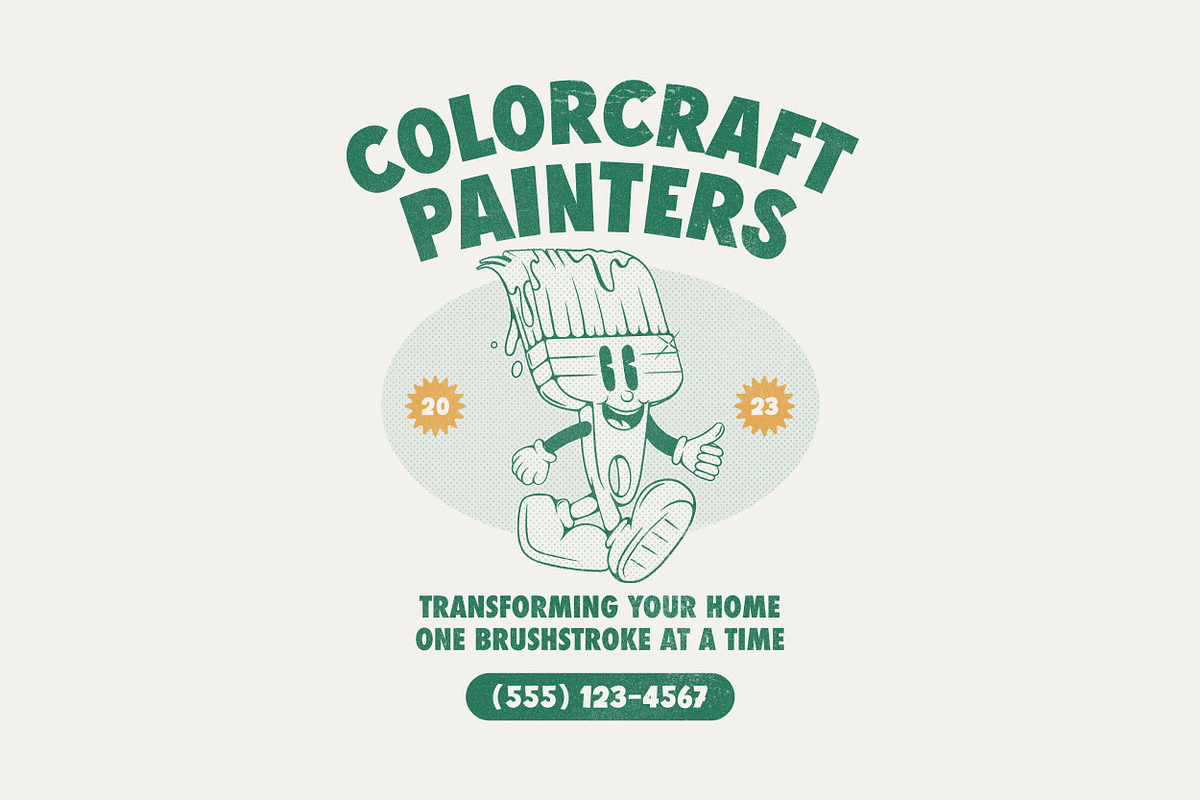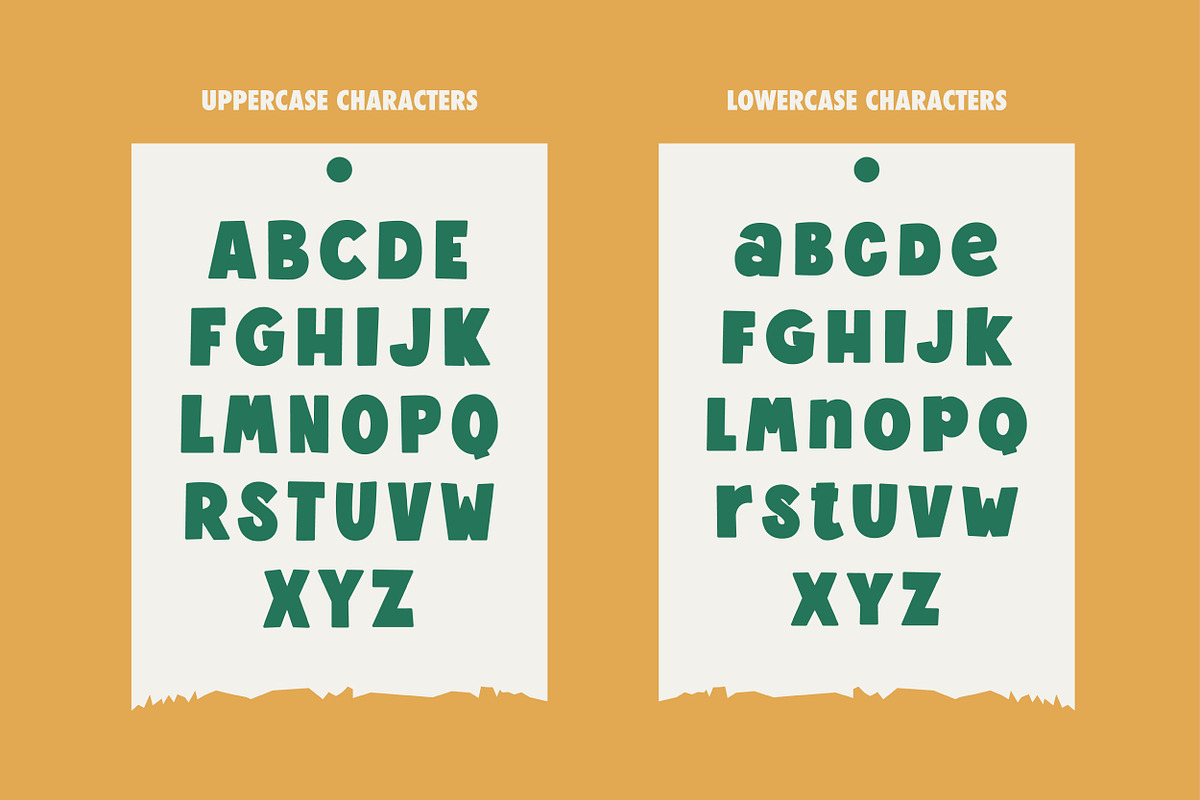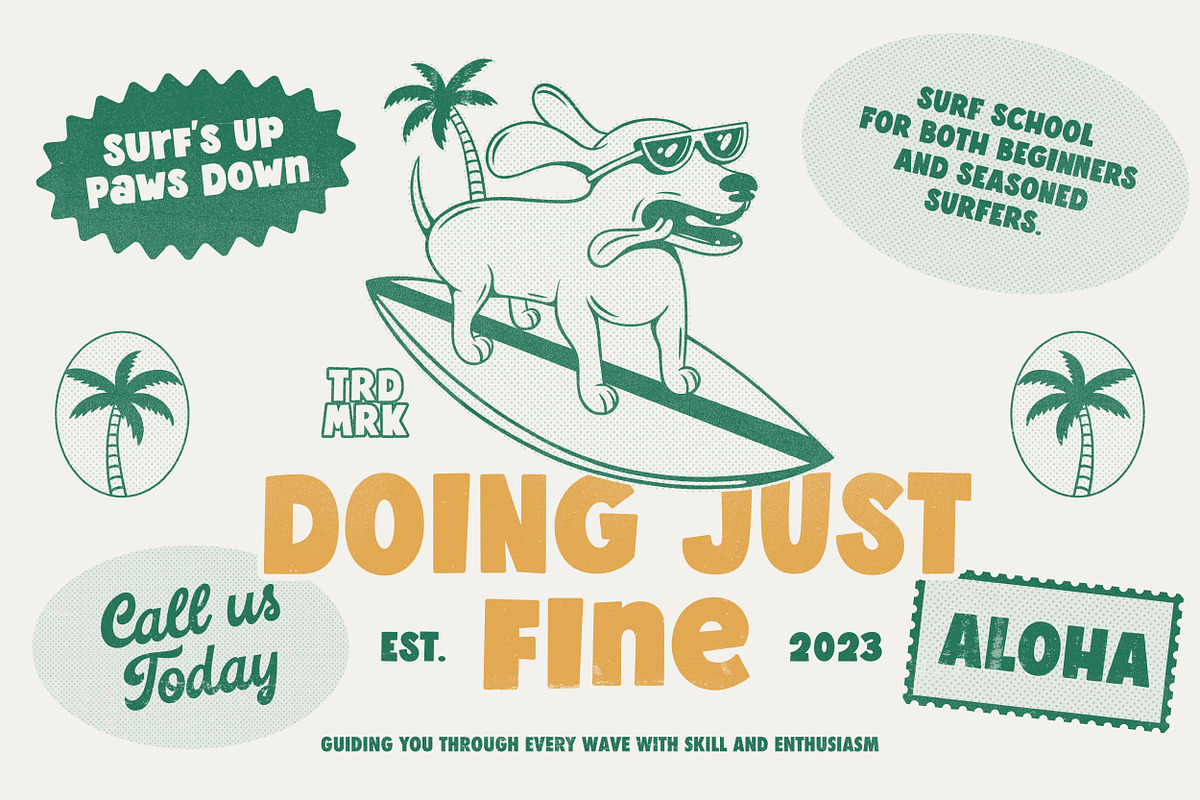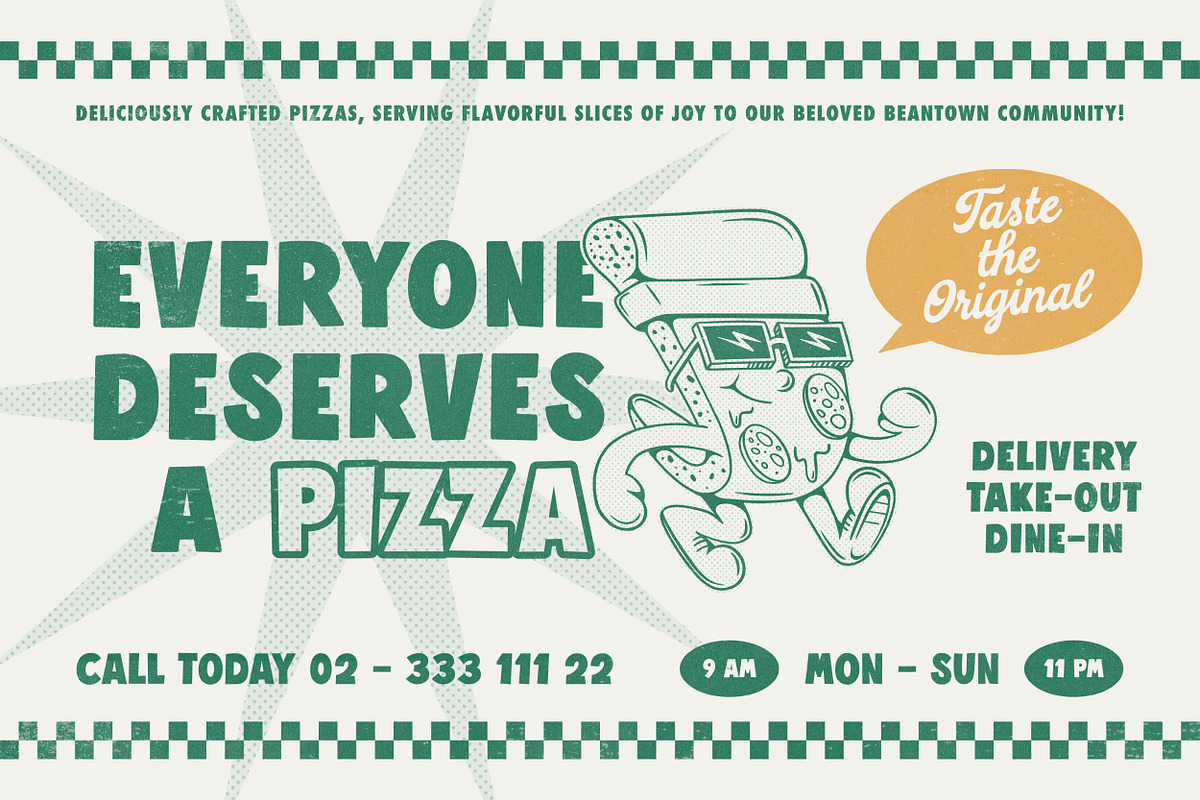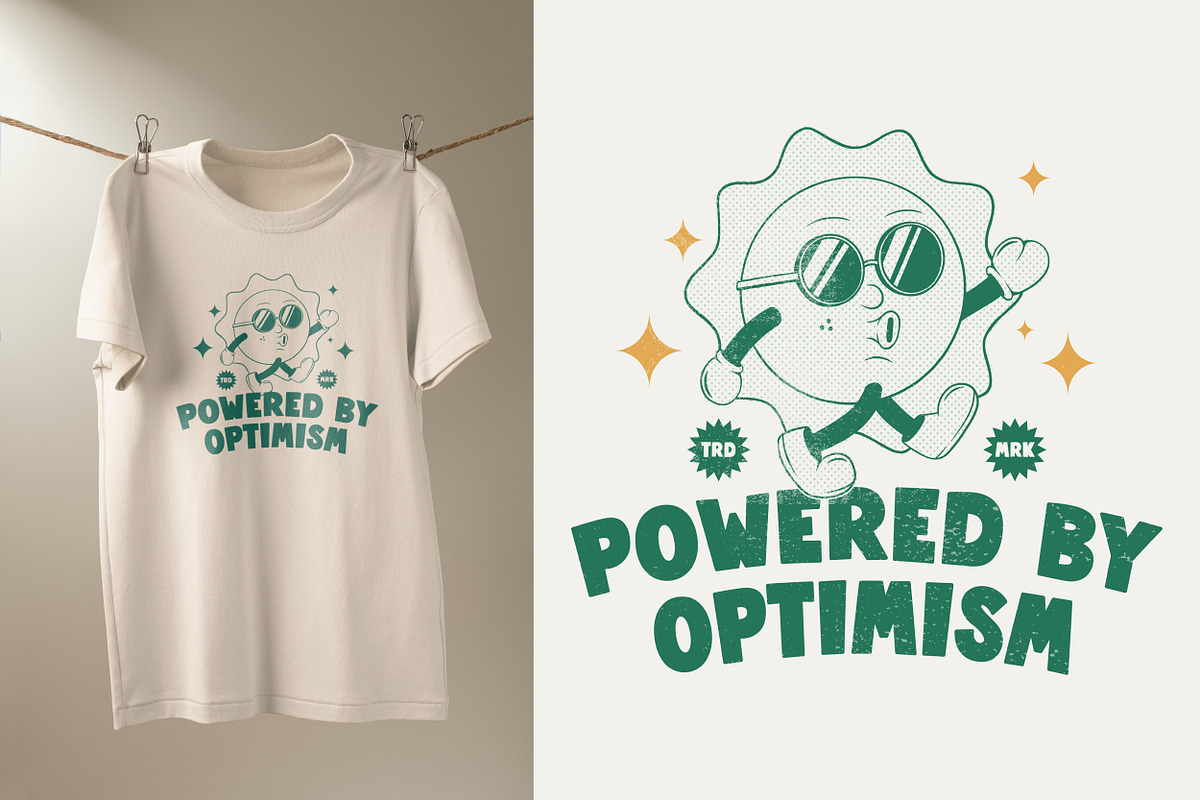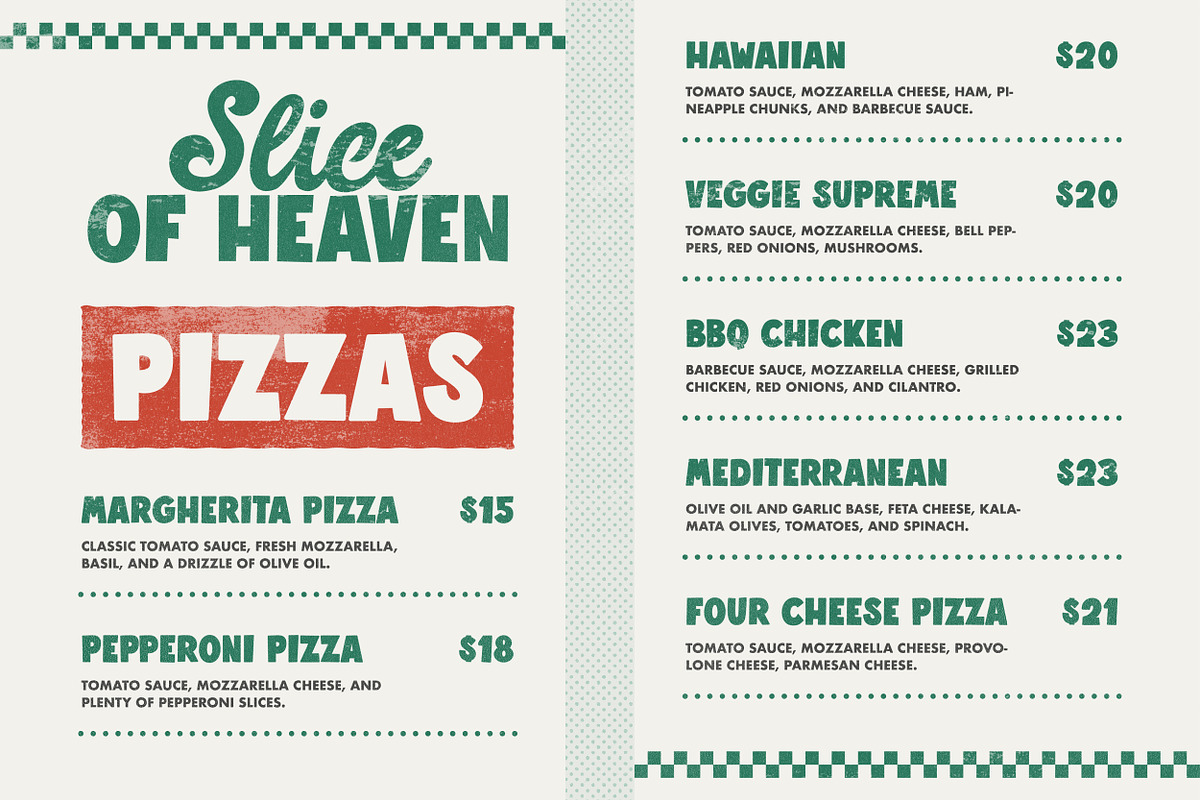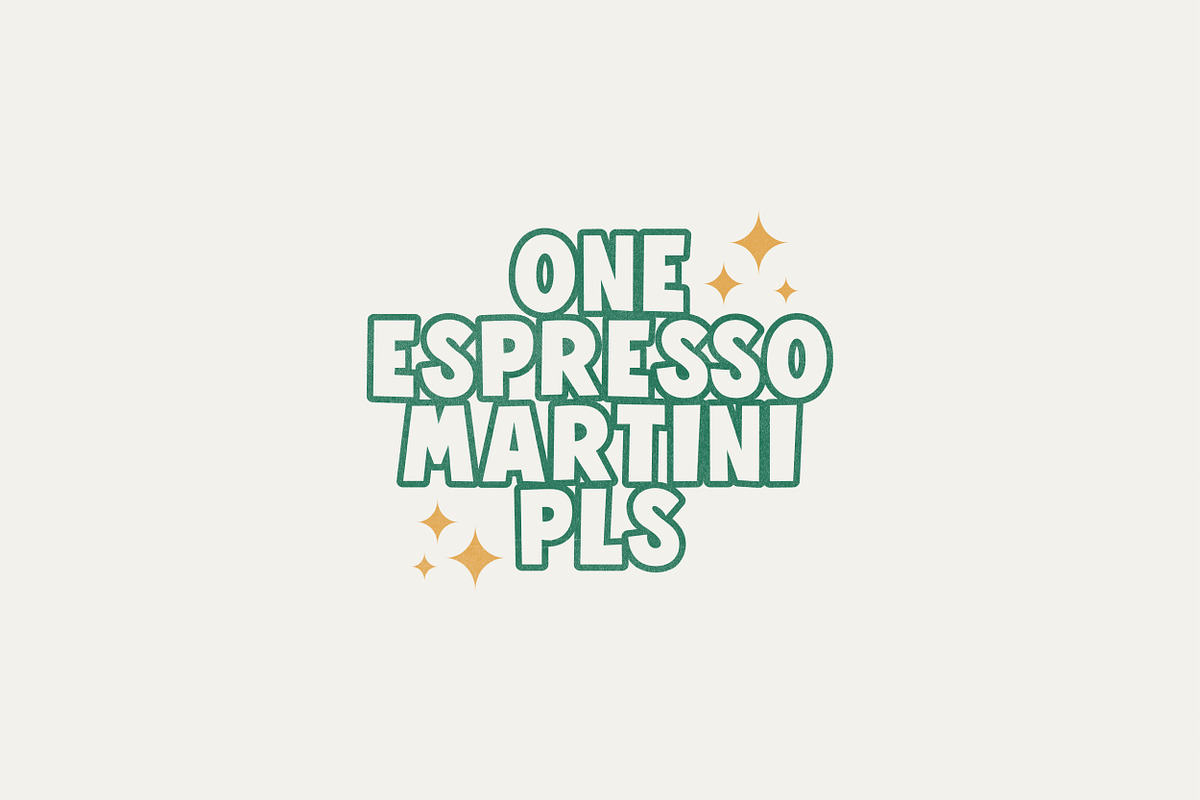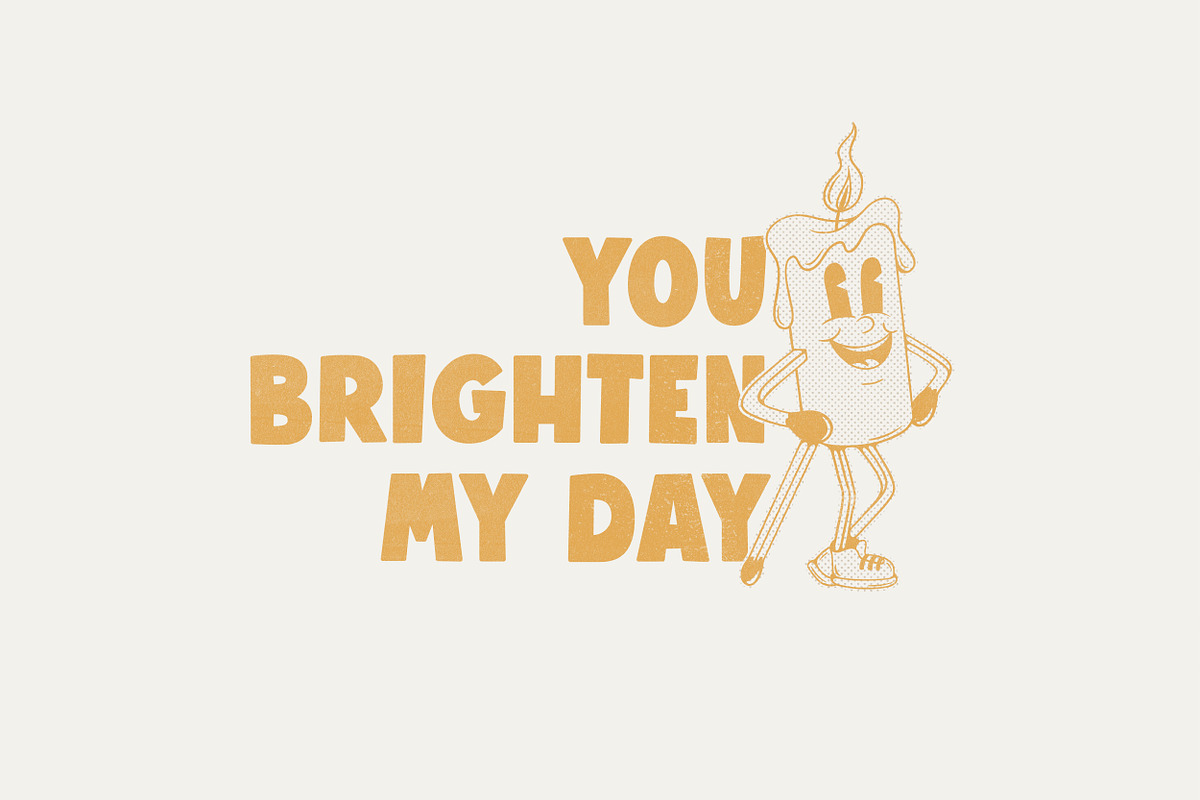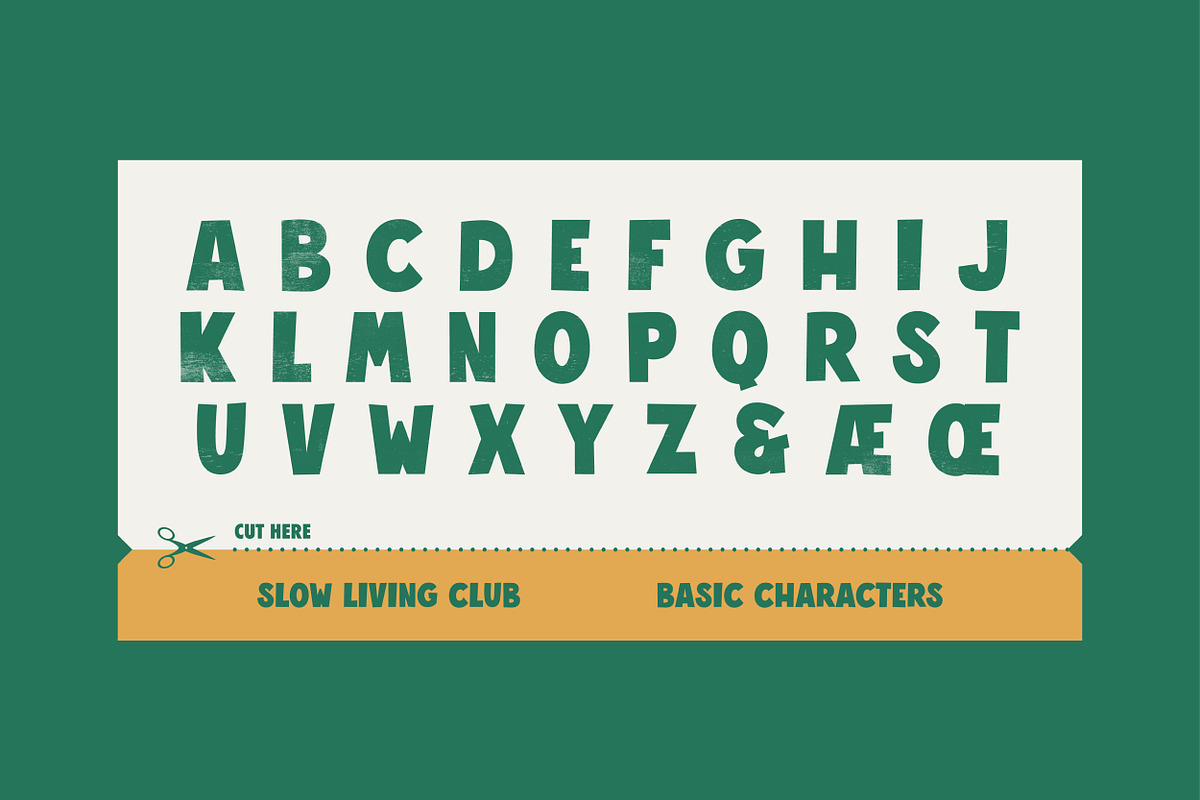
Slow Living Club Display
Introducing Slow Living Club, a carefree retro display sans. This font comes in three variations: Clean, Rounded and Outlined, allowing you to explore various design possibilities. Whether you’re working on retro apparel design like t-shirts, hats, hoodies, or any other creative project, SLC adds a fun touch to it.